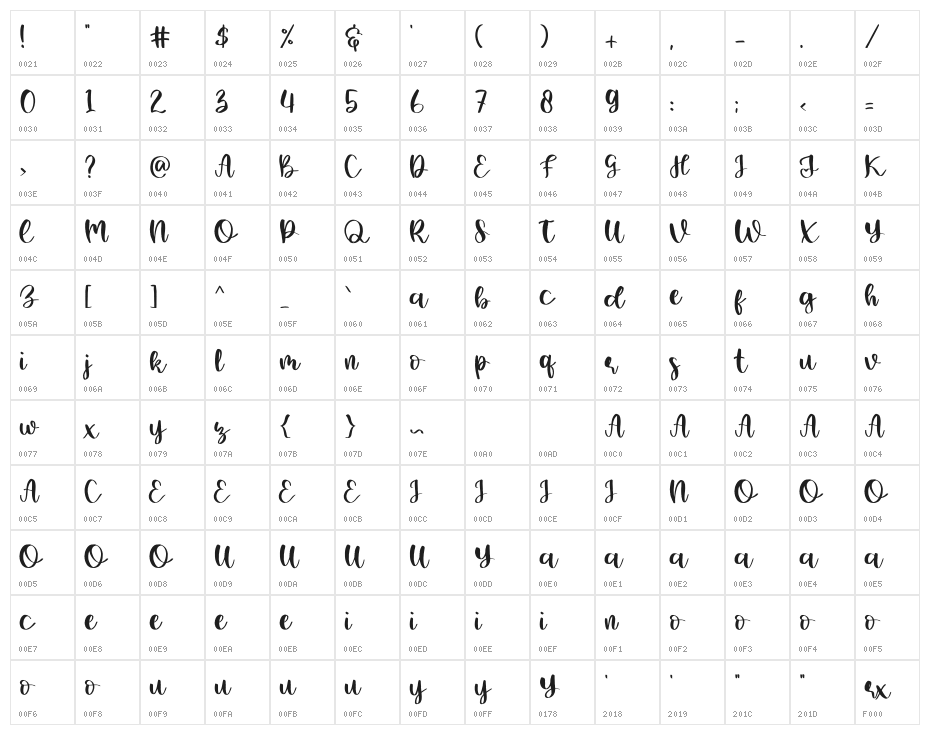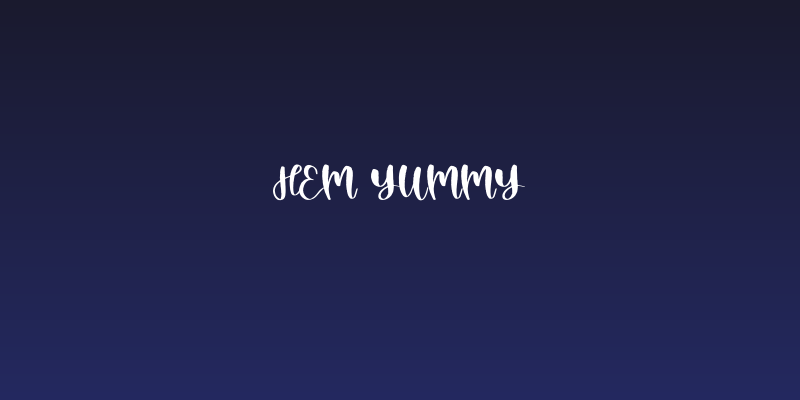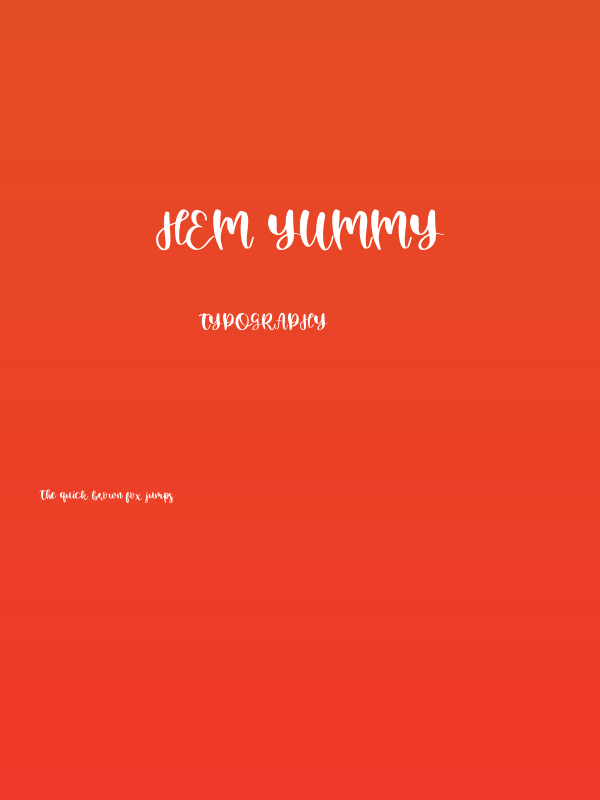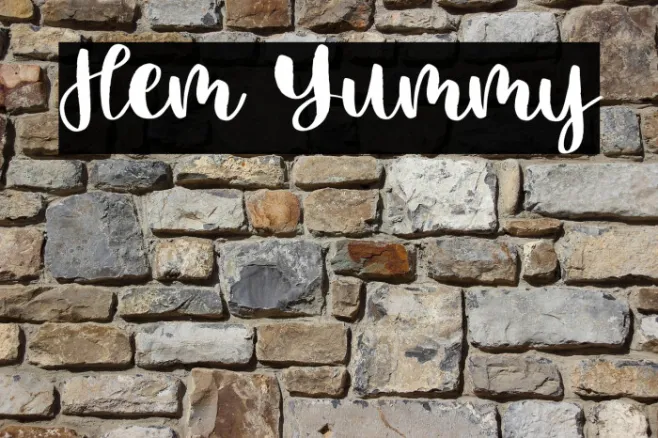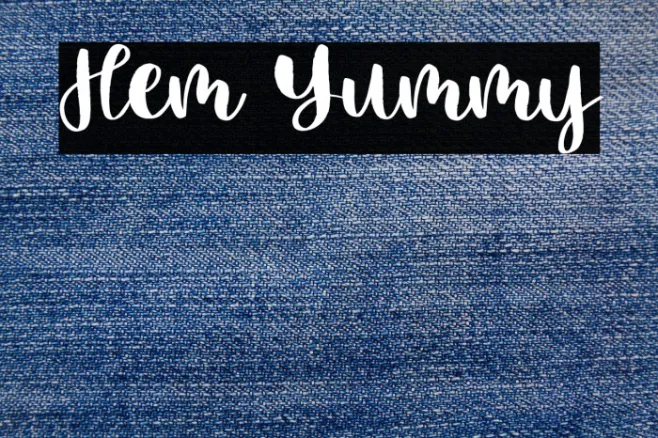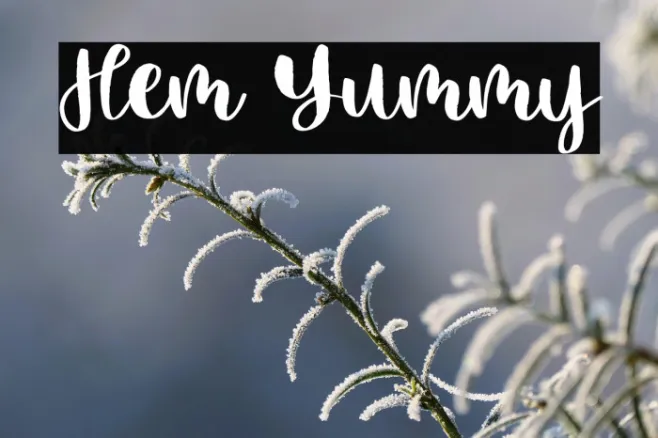
Hem Yummy Font
Hem Yummy Description
This font features a playful and whimsical script style with a handwritten appearance. The letters are characterized by their fluid, cursive strokes and varying thickness, giving it a dynamic and lively feel. The uppercase letters are bold and prominent, while the lowercase letters maintain a consistent flow with elegant loops and curves. The numbers and special characters follow the same playful design, making the font versatile for creative projects. The overall look is modern yet retains a touch of classic calligraphy, making it suitable for a variety of uses.
HEM-YUMMY UPPERCASE
HEM-YUMMY LOWERCASE
HEM-YUMMY OTHER CHARS